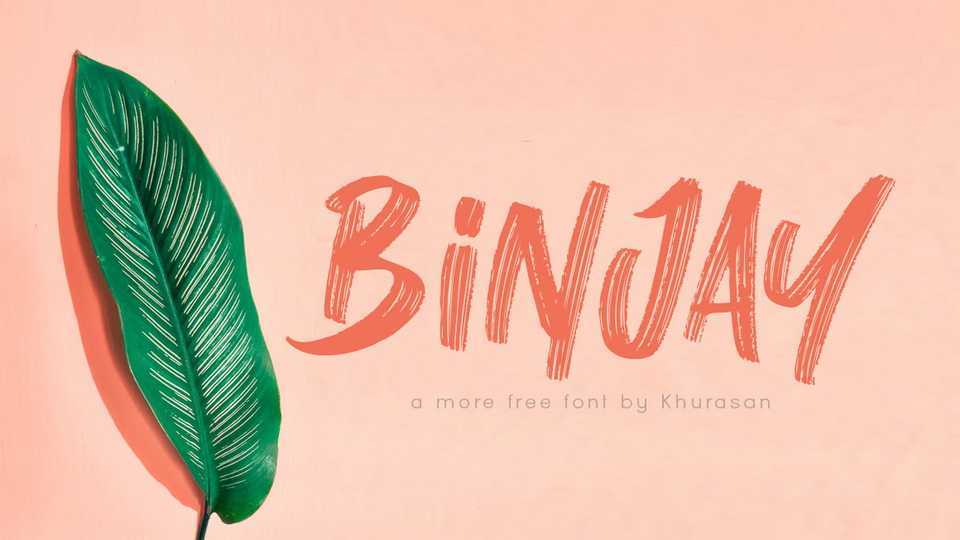
Download Binjay font, a modern and brushed handwritten typeface with a casual feel. Use Binjay for ads, logos, branding or any other design that requires a cool look.